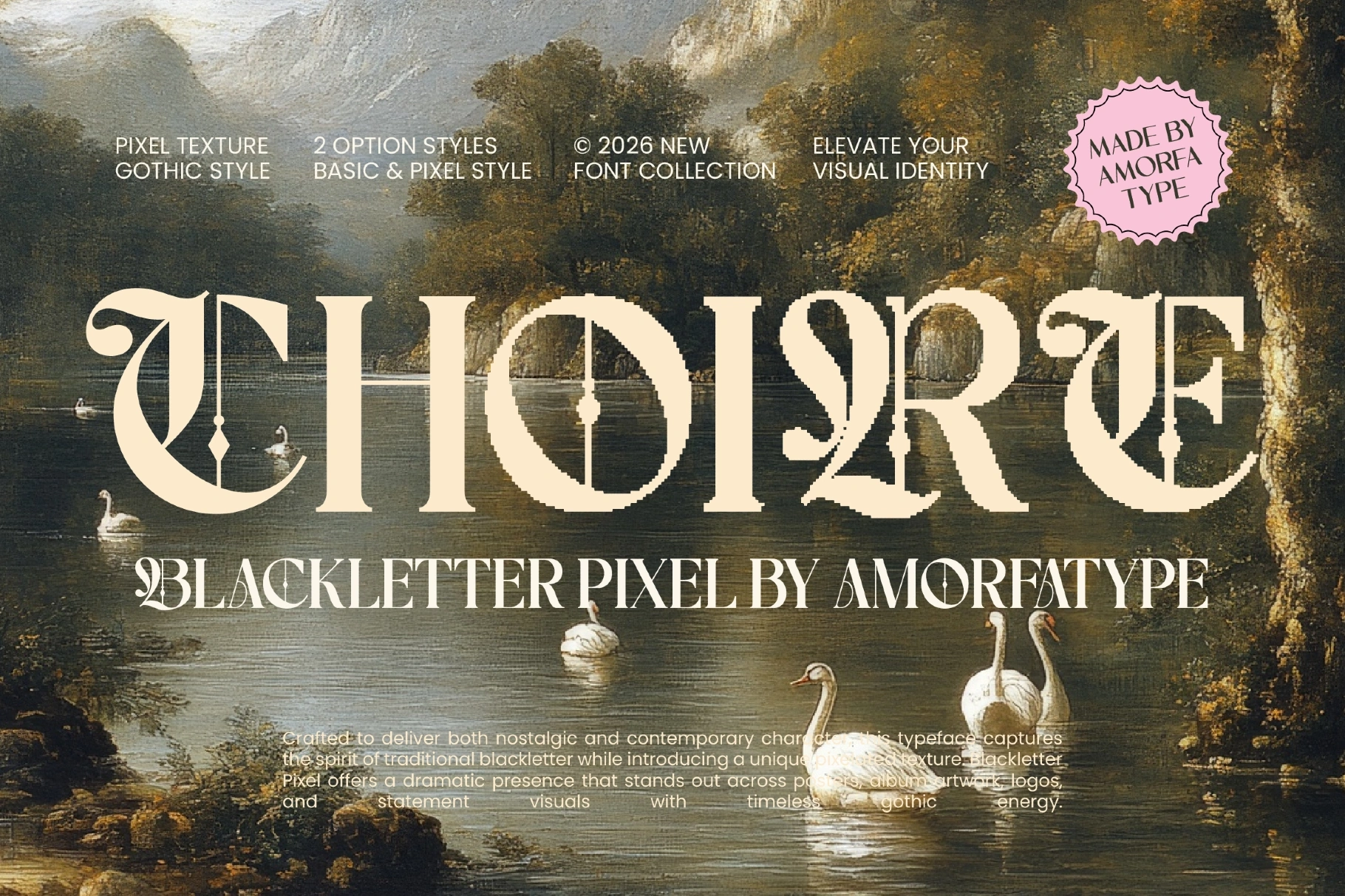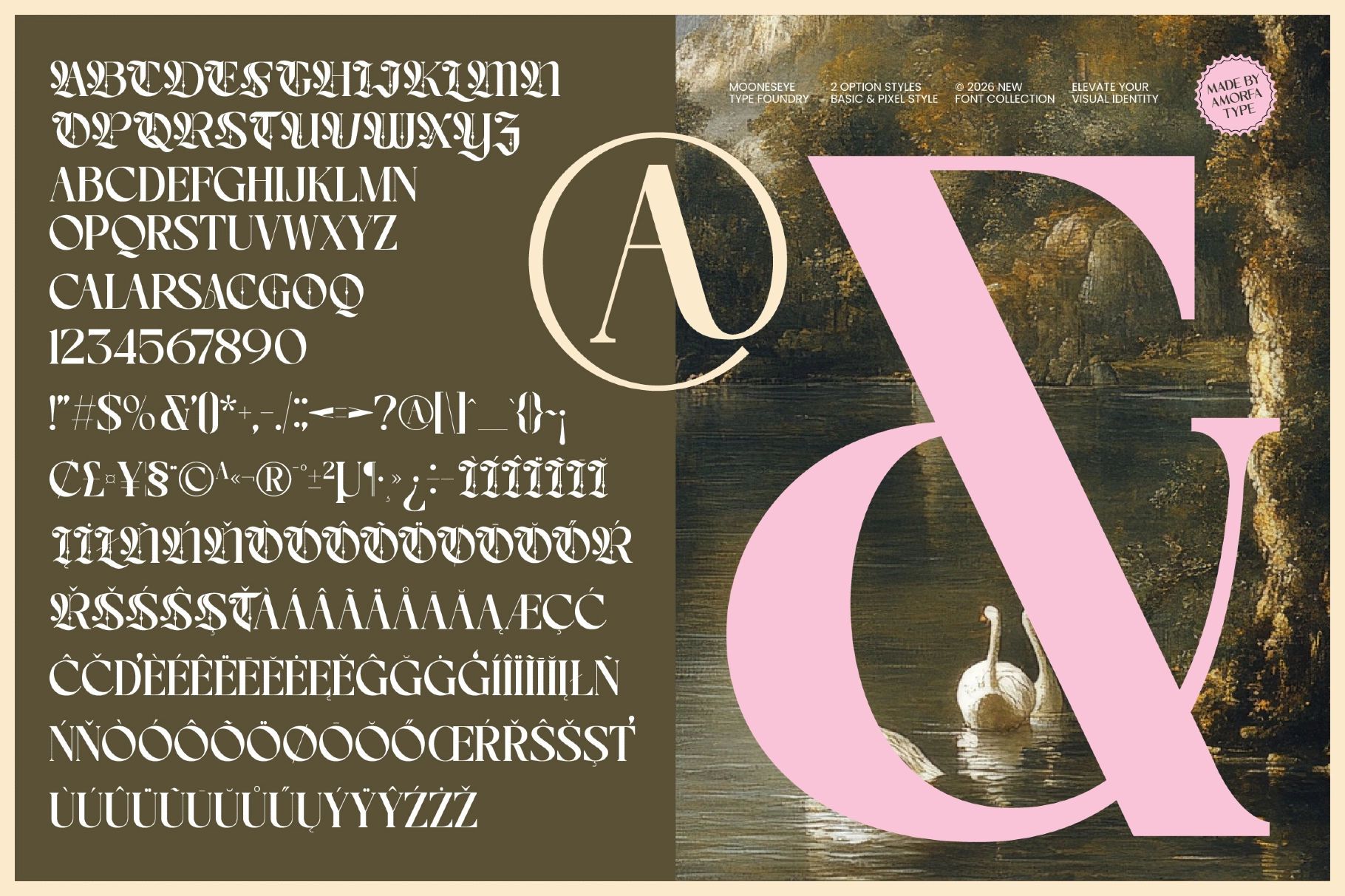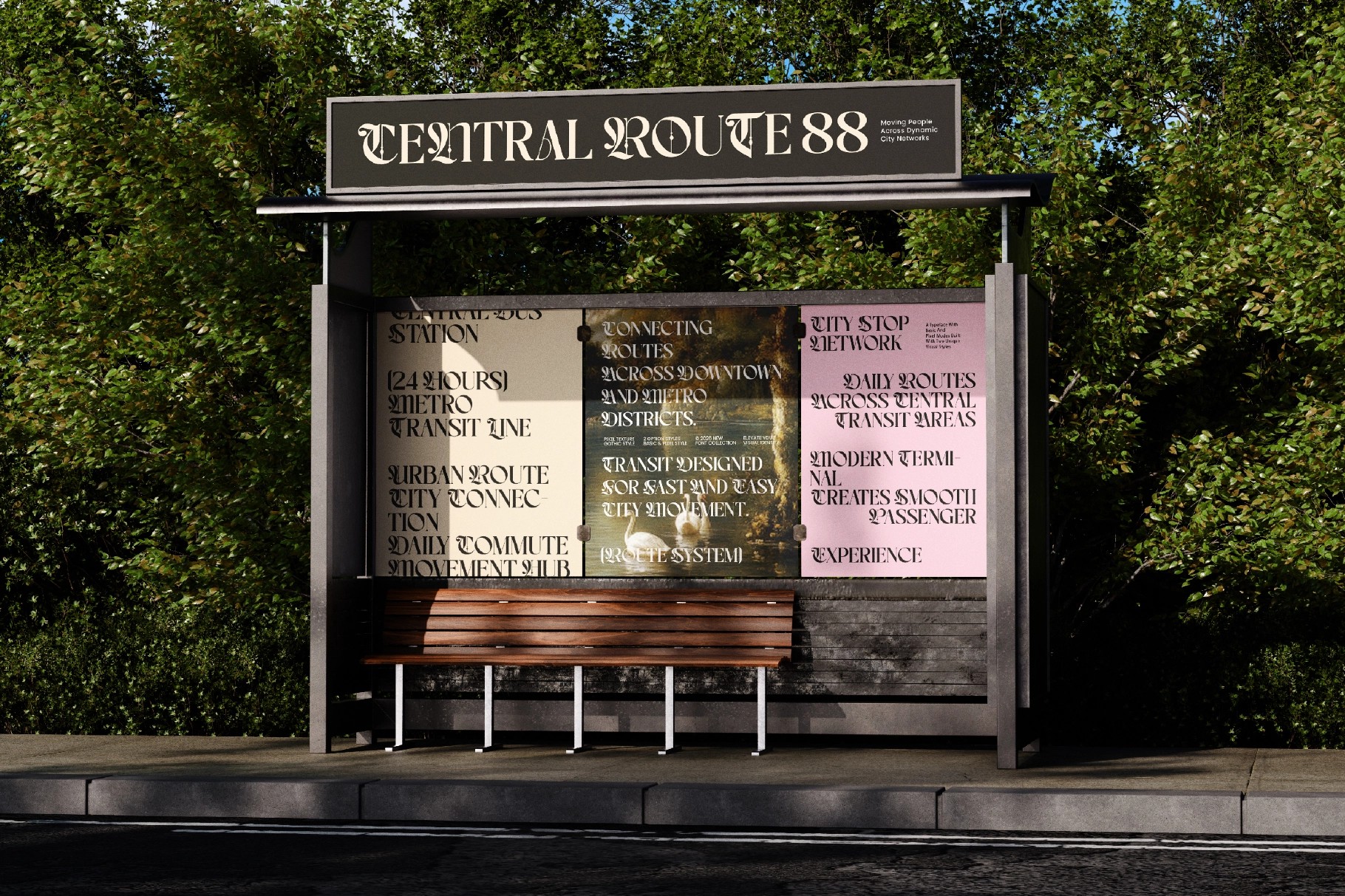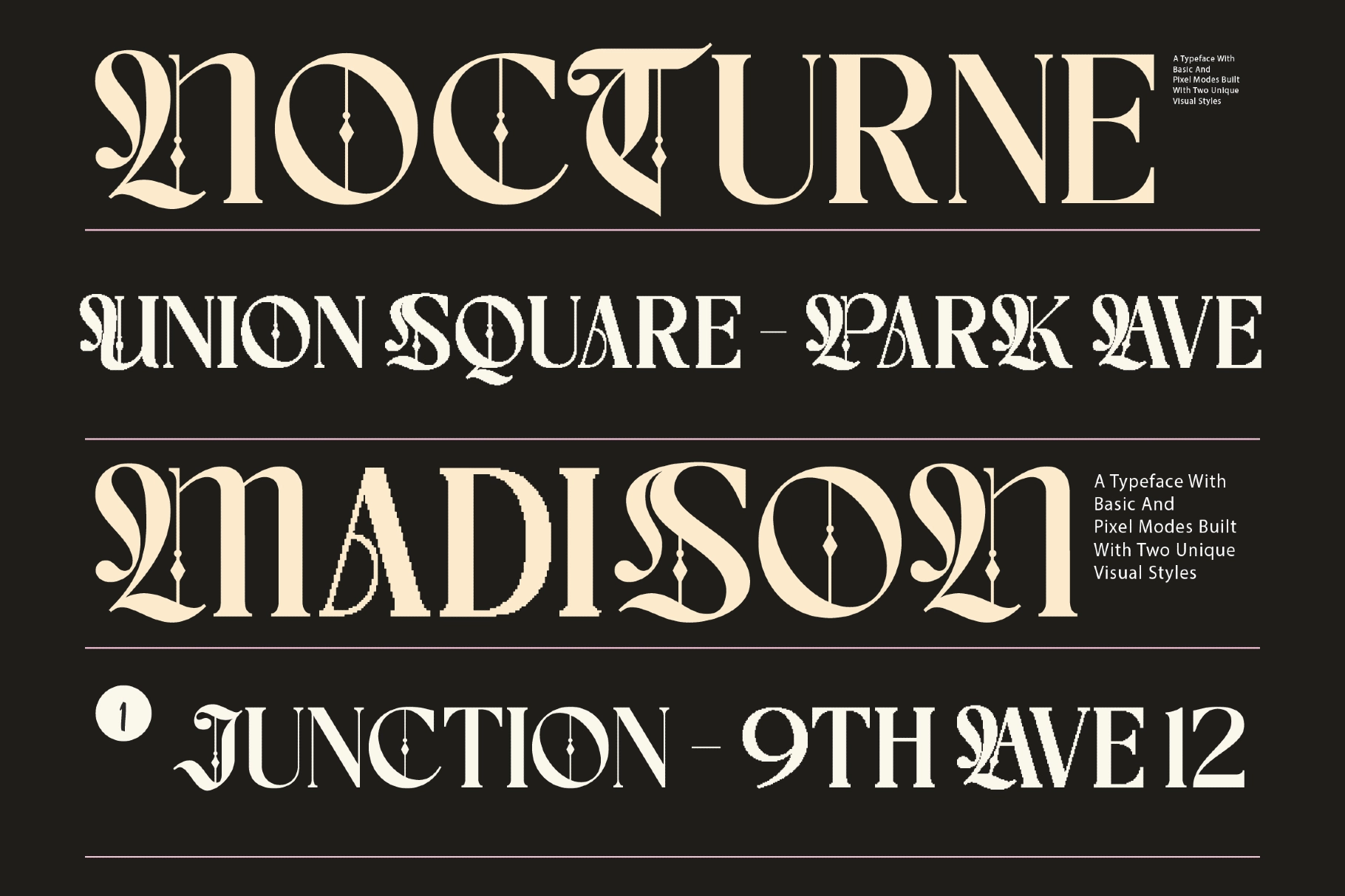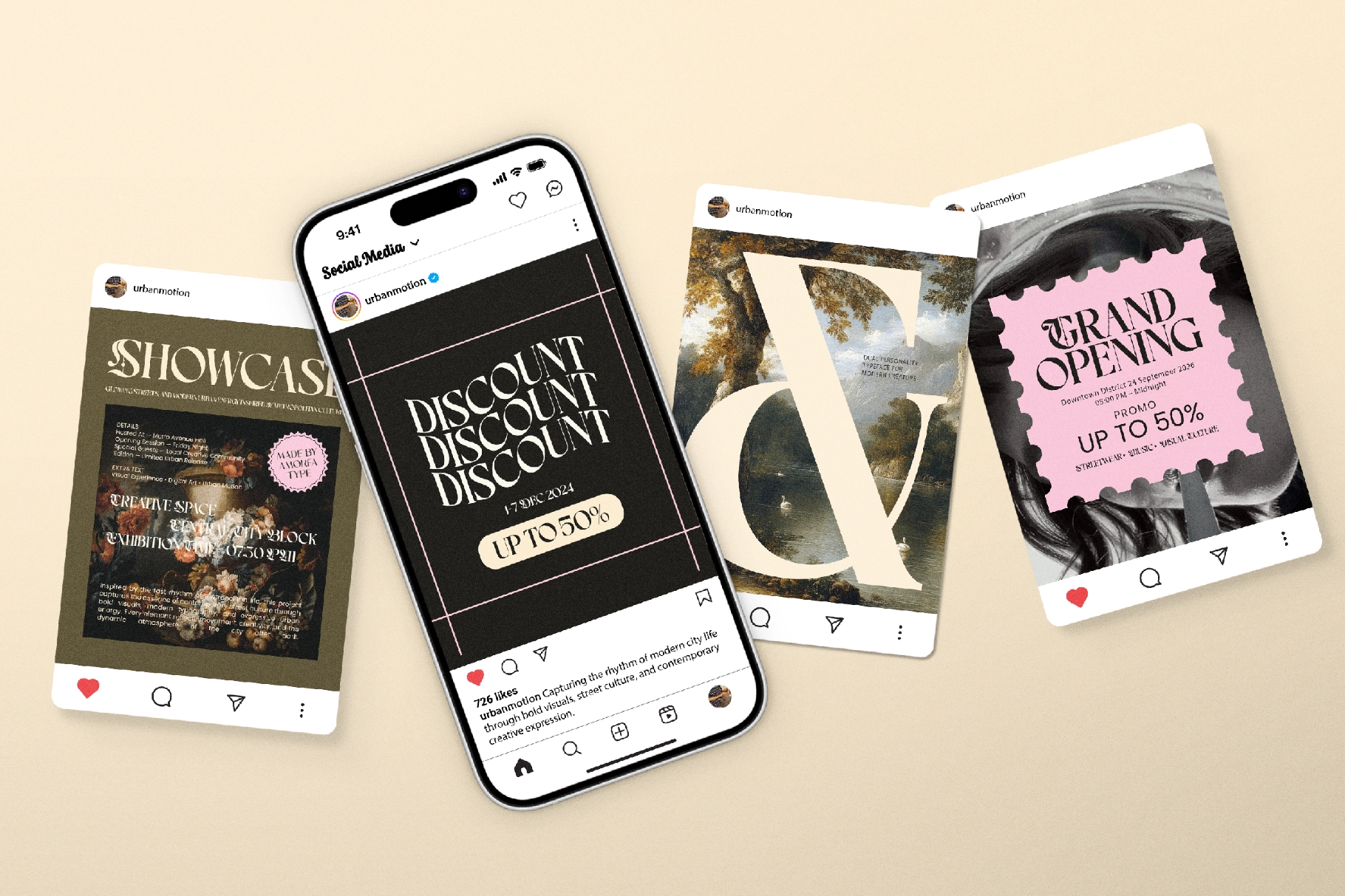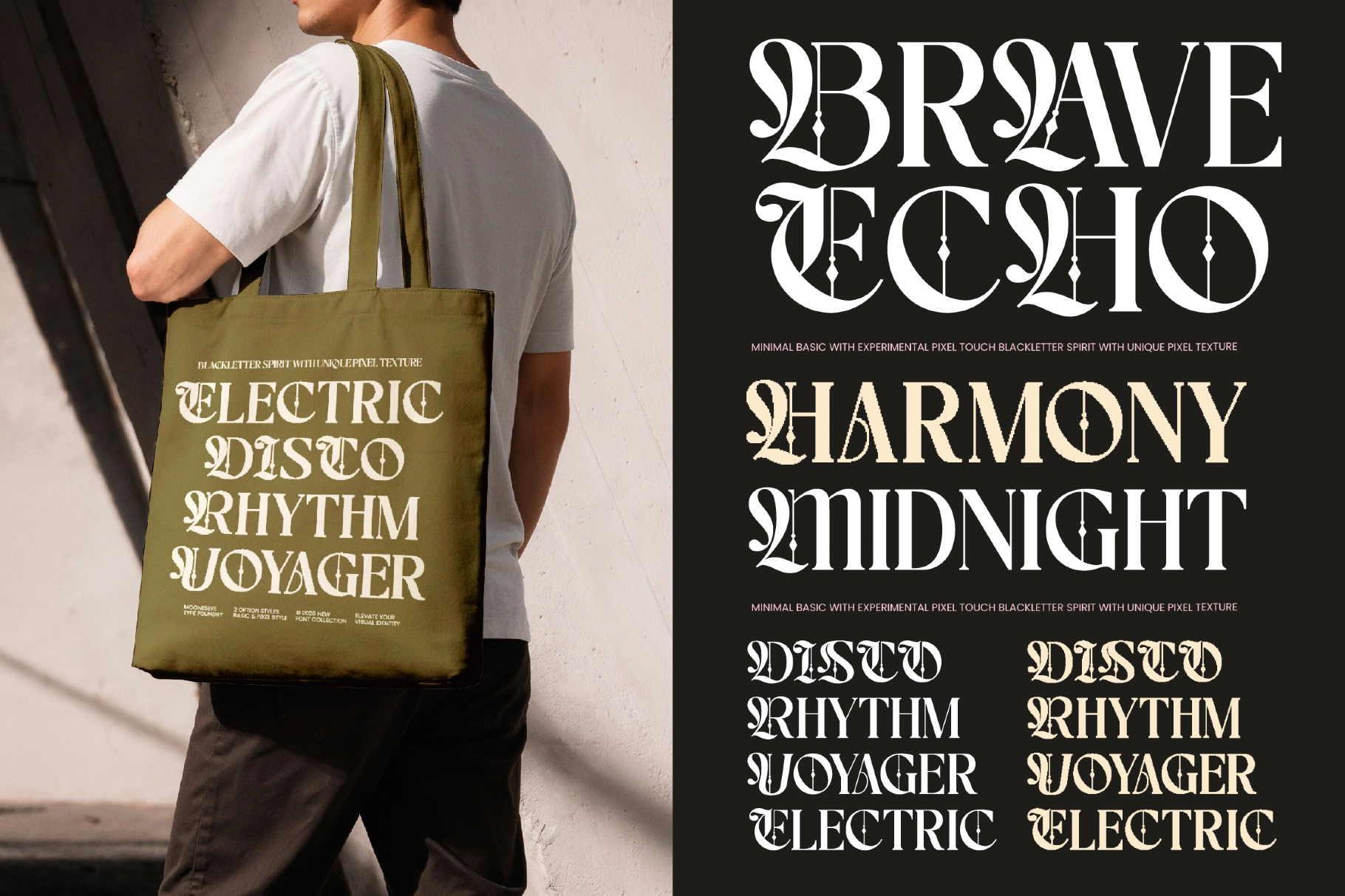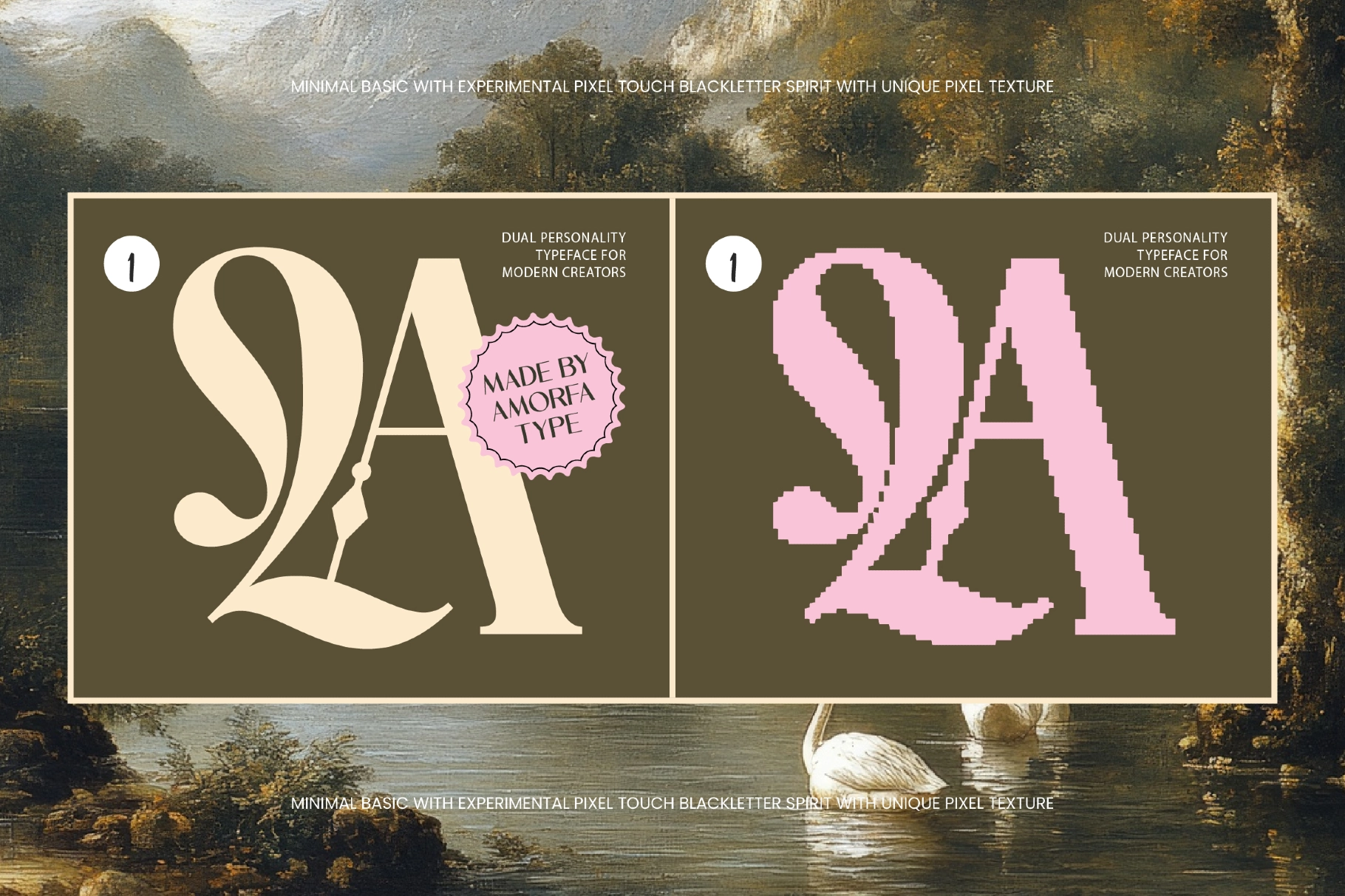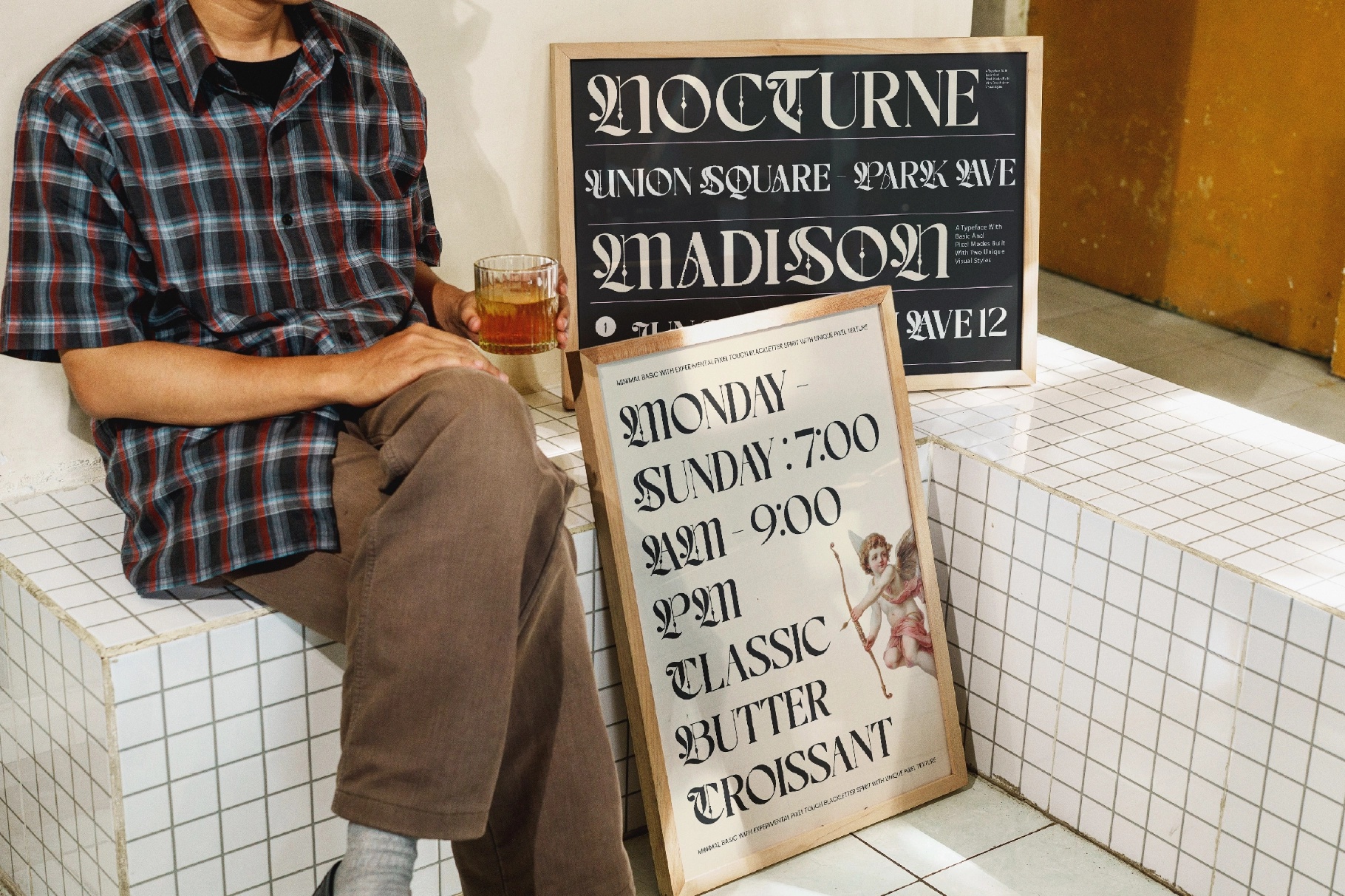
Choire - Blackletter Pixel Display Font
This blackletter display font brings gothic letterforms into a crisp bitmap frame, pairing ornate curves with squared-off digital edges. The result is sharp, dramatic, and slightly strange in the best possible way — like a medieval scribe got access to an arcade cabinet.
Choire works for poster typography, music artwork, streetwear graphics, gaming titles, festival branding, editorial headers, merchandise prints, logo concepts, packaging accents, social media graphics, and album covers. Its basic and pixel styles give designers room to shift between refined gothic drama and rougher retro distortion without losing the same strong typographic voice.
- Symbols & Multilingual Support
- 5 Alternates, 4 Ligatures